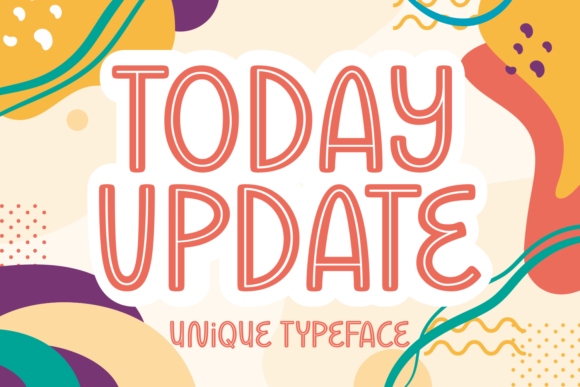
Today Update: A Modern Typeface for Professional and Creative Workflows
Today Update is a versatile inline display font designed to enhance visual communication across a wide range of applications. Its clean, contemporary design makes it ideal for projects that require clarity, style, and professionalism. Whether you're creating business cards, invitations, or branding materials, Today Update offers a modern aesthetic that aligns with current design trends while maintaining readability and impact.
This typeface is particularly useful in workflows where visual consistency and brand identity are important. It can be integrated into both digital and print projects, making it a valuable tool for designers, marketers, and small business owners who need a reliable font for multiple use cases.
Understanding Today Update in the Design Process
When working on any design project, choosing the right typography is a critical step. Today Update fits into this process by offering a balance between modernity and functionality. Its structure allows it to stand out without overwhelming the content, making it suitable for headings, logos, and short-form text.
Before starting a project, consider how the font will contribute to the overall message. For example, if you're designing a logo for a tech startup, Today Update's sleek lines and open spacing can convey innovation and approachability. In contrast, when used for a formal invitation, its structured form can add a sense of elegance and professionalism.
Using Today Update in Different Stages of a Project
The versatility of Today Update means it can be applied at various stages of a project. During the planning phase, it can help visualize how text will appear in different formats. This is especially useful when designing for multiple platforms, such as social media, websites, or printed materials.
During execution, Today Update can be paired with other fonts to create a cohesive typographic hierarchy. For instance, using it as a headline font while pairing it with a more traditional serif for body text can create a balanced and professional look. This approach is common in branding and editorial design, where visual contrast is key to engaging the audience.
After the project is complete, Today Update can be part of a quality control process. Ensuring that the font is used consistently across all deliverables helps maintain a strong brand presence. This is especially important for businesses that rely on visual identity to build trust and recognition.
Integrating Today Update into Your Workflow
For freelancers and independent creators, incorporating Today Update into their workflow can improve efficiency. By having a trusted font ready for use, they can focus more on the creative aspects of their work rather than spending time searching for the right typeface.
Practical Applications and Use Cases
Today Update is well-suited for a variety of practical applications. In the realm of personal branding, it can be used to create eye-catching social media profiles, portfolio websites, or email signatures. Its modern look helps establish a professional image that resonates with target audiences.
In the context of event planning, Today Update can be used for invitations, RSVP cards, and promotional materials. Its readability ensures that important details are clearly communicated, while its stylish appearance adds a touch of sophistication. This makes it a popular choice for weddings, conferences, and community events.
For entrepreneurs and small business owners, Today Update can be a valuable asset in branding efforts. It can be used on product packaging, signage, and advertising materials to create a cohesive and memorable brand identity. When paired with a consistent color scheme and imagery, it helps reinforce brand recognition and customer loyalty.
Considerations for Long-Term Use
When selecting a font for long-term use, factors such as compatibility and scalability should be considered. Today Update is designed to work across different operating systems and design platforms, ensuring that it remains functional regardless of the tools being used.
Additionally, the font’s file size and licensing terms should be reviewed to ensure they meet the needs of the project. For commercial use, it’s important to verify that the license allows for the intended application, whether it’s for print, web, or digital media.
Today Update is more than just a font—it’s a tool that supports effective communication and visual storytelling. By understanding its role in the design process and integrating it into your workflow, you can enhance the quality and consistency of your projects.
Whether you’re a designer, marketer, or business owner, Today Update offers a modern solution that aligns with current design standards and practical needs. Its flexibility and reliability make it a valuable addition to any creative or professional toolkit.